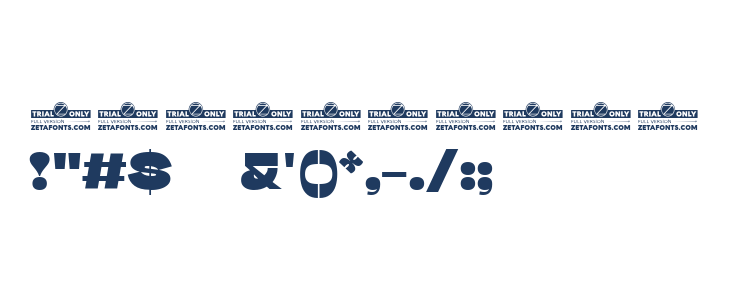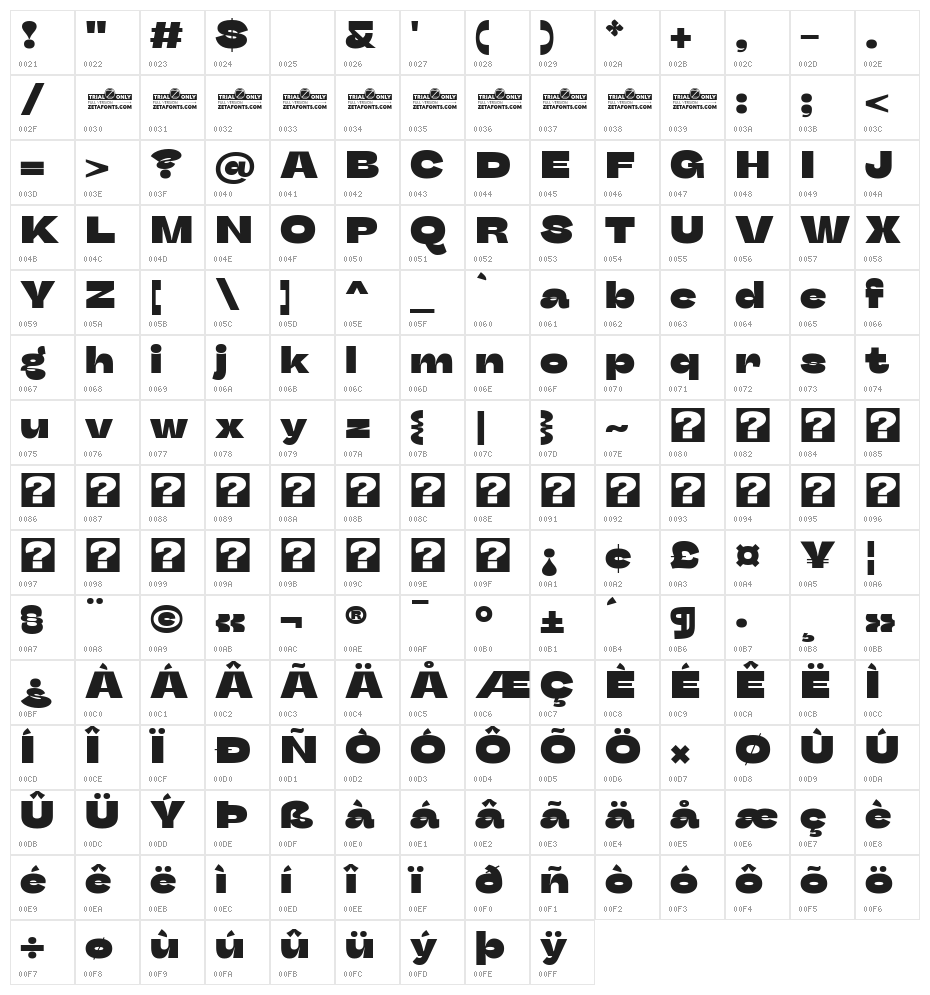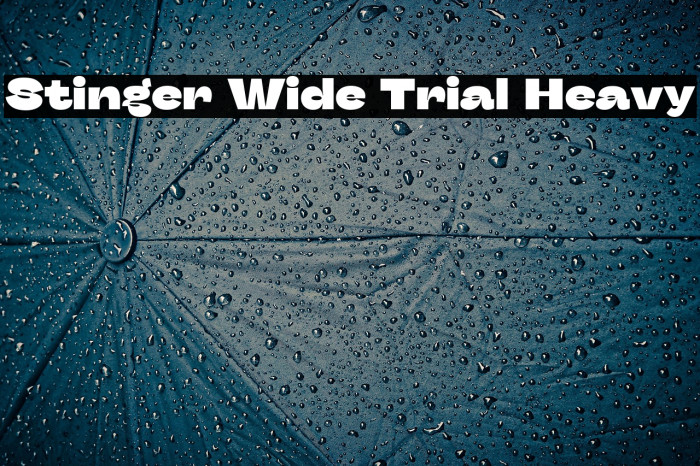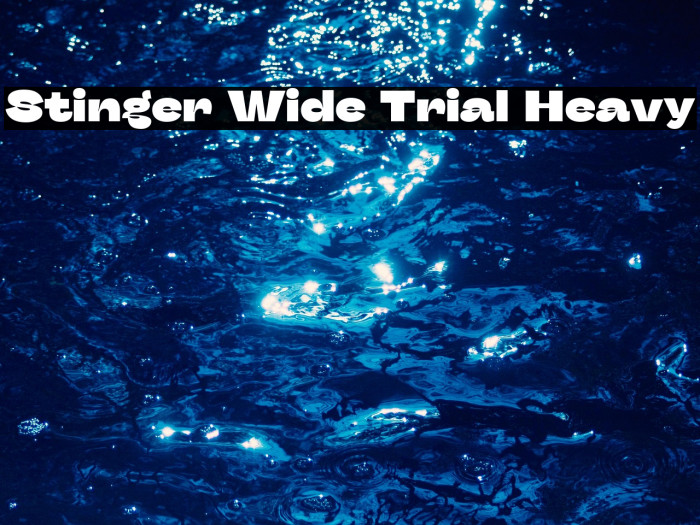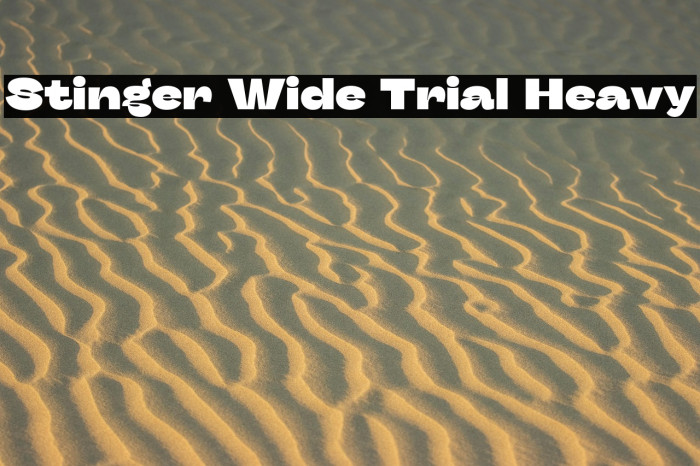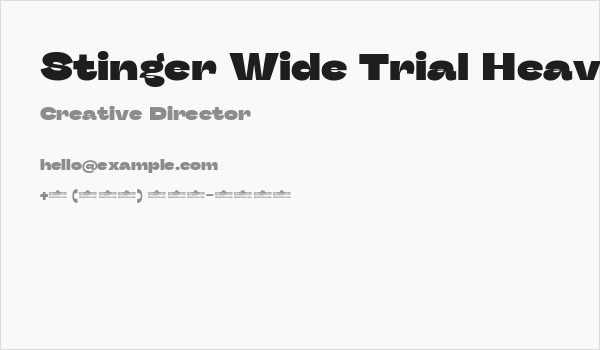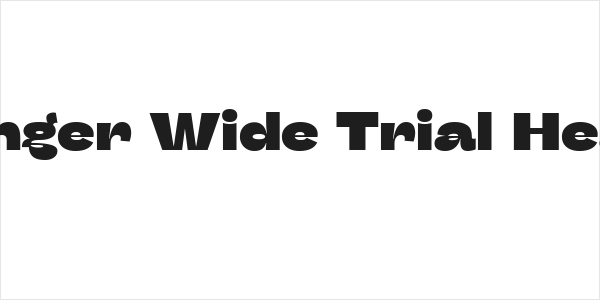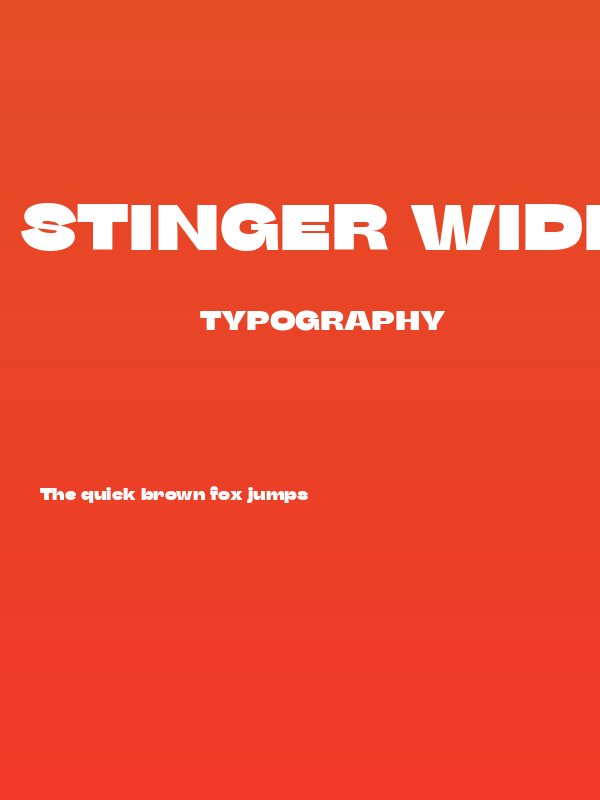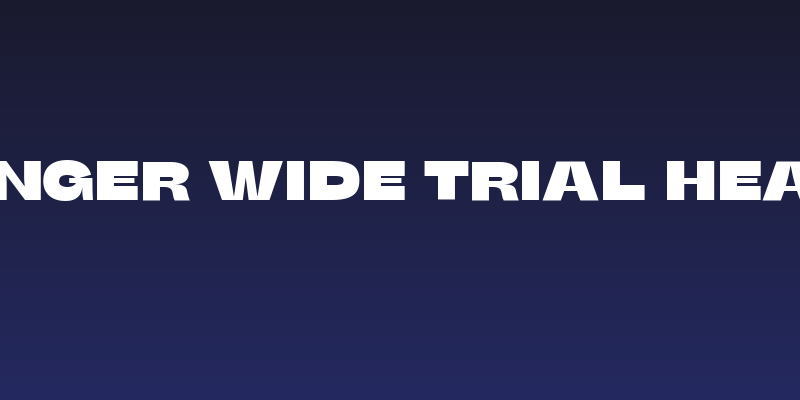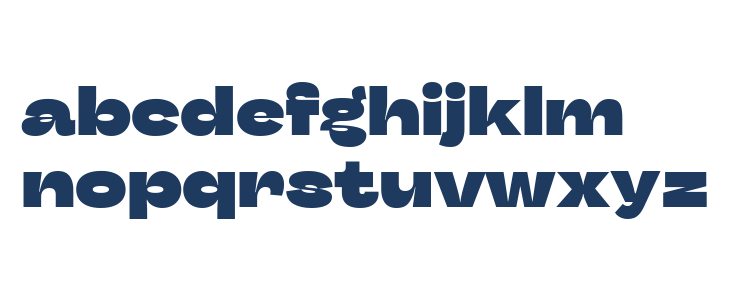
Stinger Wide Trial Heavy Font
Stinger Wide Trial Heavy Description
This font features a bold and impactful design with wide, heavy strokes that create a strong visual presence. The uppercase and lowercase letters maintain a consistent width, contributing to a cohesive and uniform appearance. The characters are designed with minimal contrast, emphasizing a modern and robust aesthetic. The font includes a full set of uppercase and lowercase letters, numerals, and a variety of special characters, making it versatile for various design needs. Its boldness and width make it particularly suitable for attention-grabbing headlines and display purposes.
WidthExpanded
Use CaseHeadlines, Logos, Display
Proposed ProjectsIdeal for branding, poster design, advertising, and any project requiring a strong visual impact.